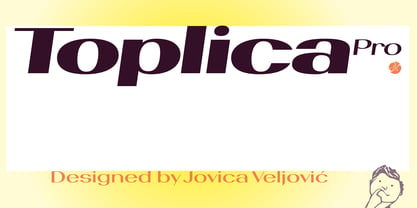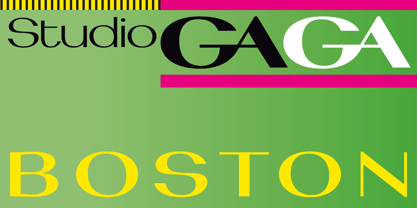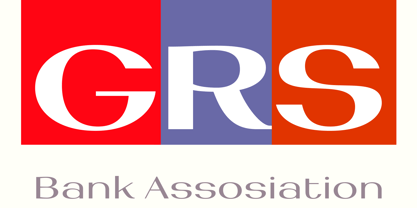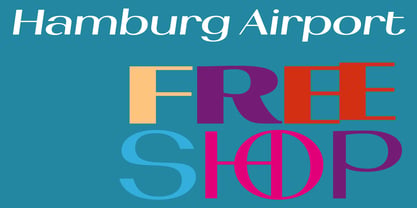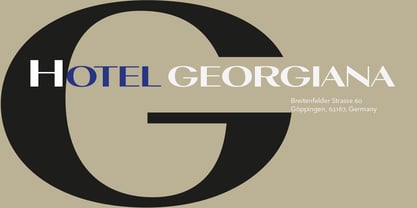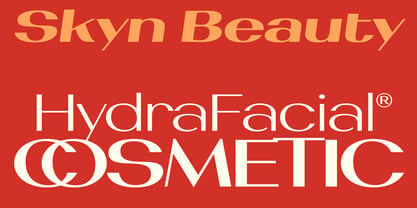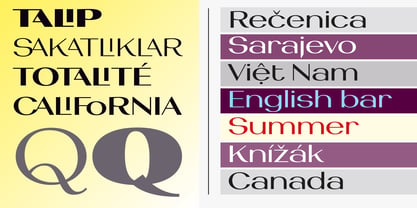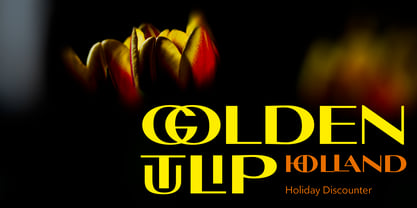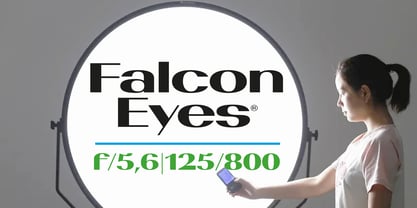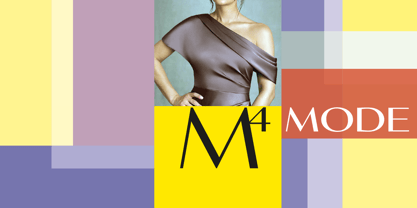
Toplica Pro
por Jovica Veljovic
A família de fontes Toplica Pro foi desenhada por Jovica Veljovic e publicada pela Jovica Veljovic. Toplica Pro contém 4 estilos. Saiba mais sobre esta família
Toplica typeface is distinguished by its minimalist design; its simple, elliptical form gives it an instantly recognizable visual identity. The slightly offset elliptical inner shapes, combined with a pronounced x-height, lend the typeface a monumental and distinctive character.
The striking contrast between horizontal and vertical strokes creates an interplay of light and shadow within the letterforms.
Toplica, designed by Jovica Veljović radiates calm, serenity, and balance, making it ideal for a wide range of display applications, including logo design, signage, headlines, advertising graphics, and much more.
The typeface family comprises seven weights, from Light to Heavy and a matching italic. It offers features such as small caps, ligatures, alternate glyphs and some ornaments.
Stylistic sets enable the creation of custom character combinations for the typographic appearance.